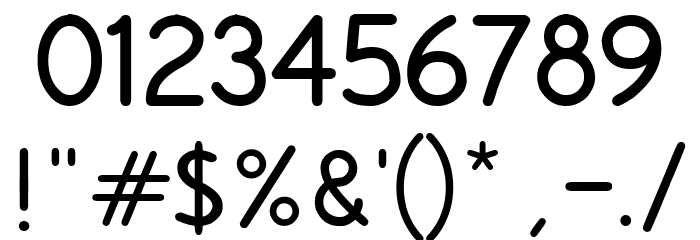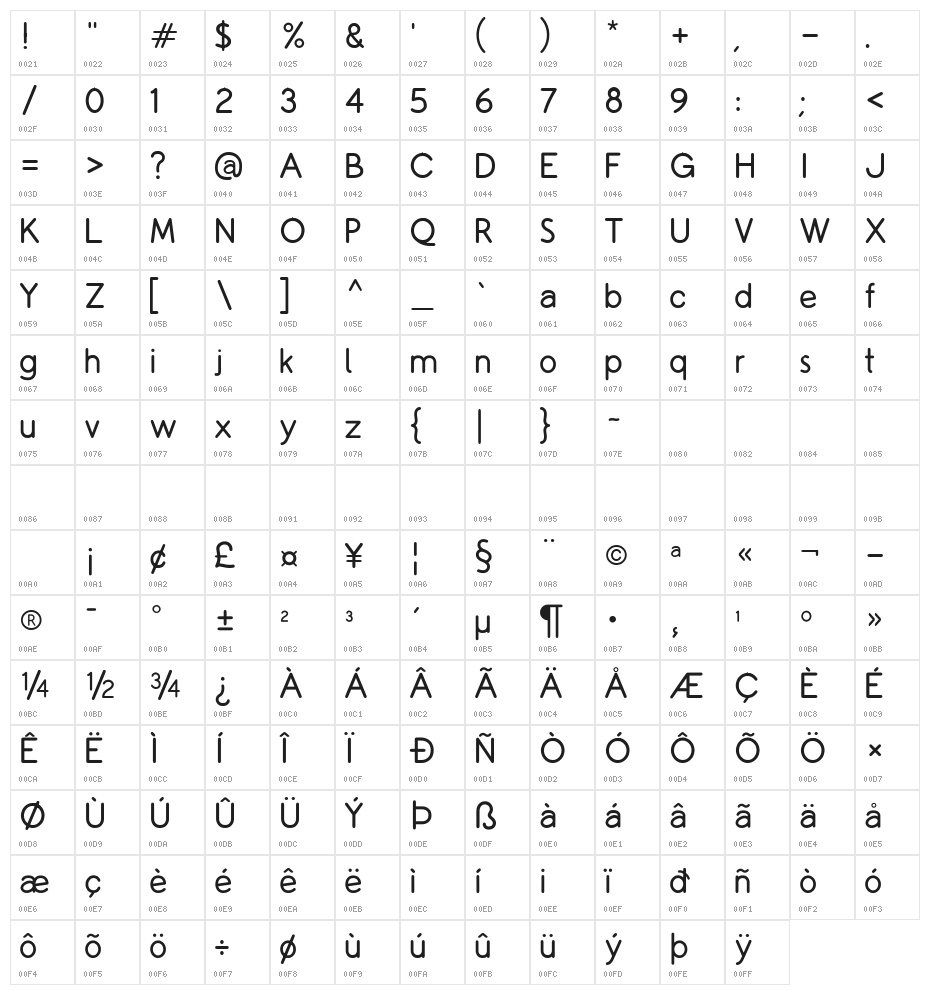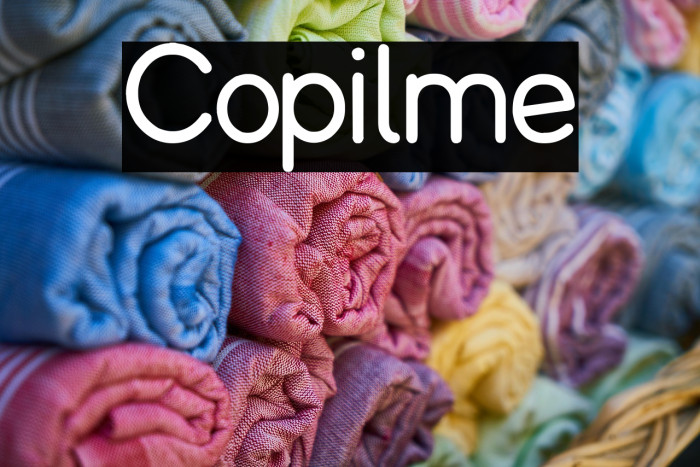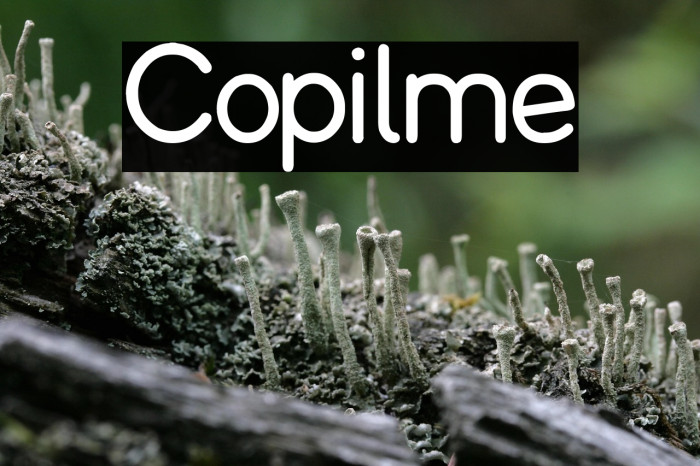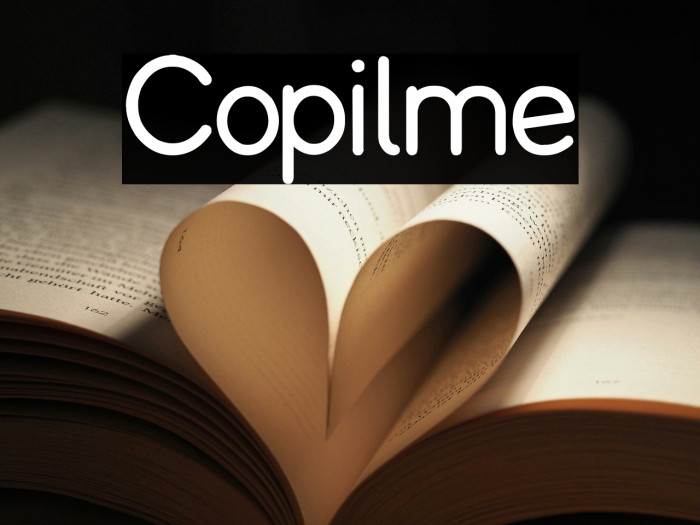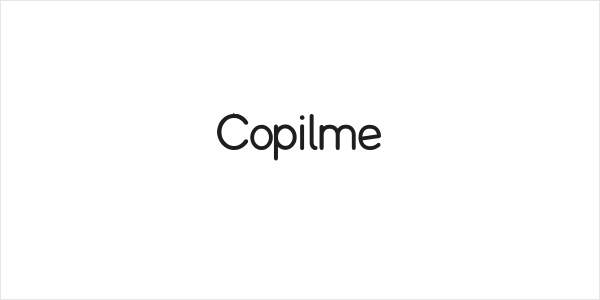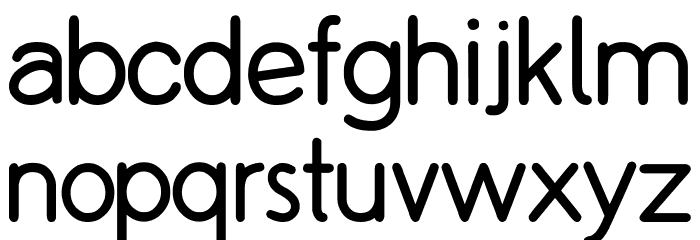
Copilme Font
Copilme Description
This font features a clean and modern sans-serif style with smooth, rounded edges that give it a friendly and approachable appearance. The characters are evenly spaced, providing a balanced and harmonious look. The uppercase and lowercase letters maintain a consistent height, contributing to its readability. The numerals are clear and distinct, making them easy to read. Special characters are well-integrated, maintaining the overall aesthetic of the font. Its simplicity and clarity make it versatile for various design applications.
| Proposed Projects | Ideal for branding, web design, user interfaces, and educational materials due to its clarity and modern appeal. |